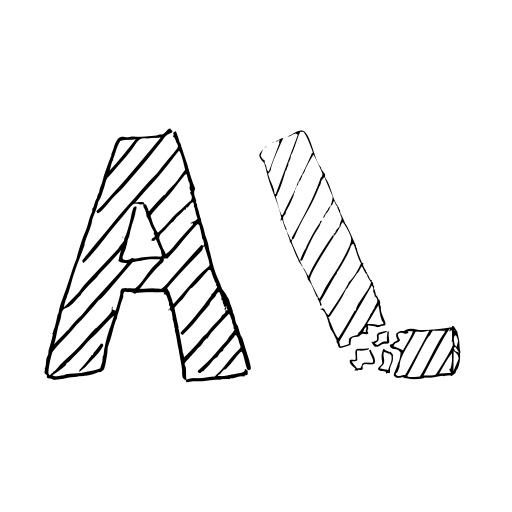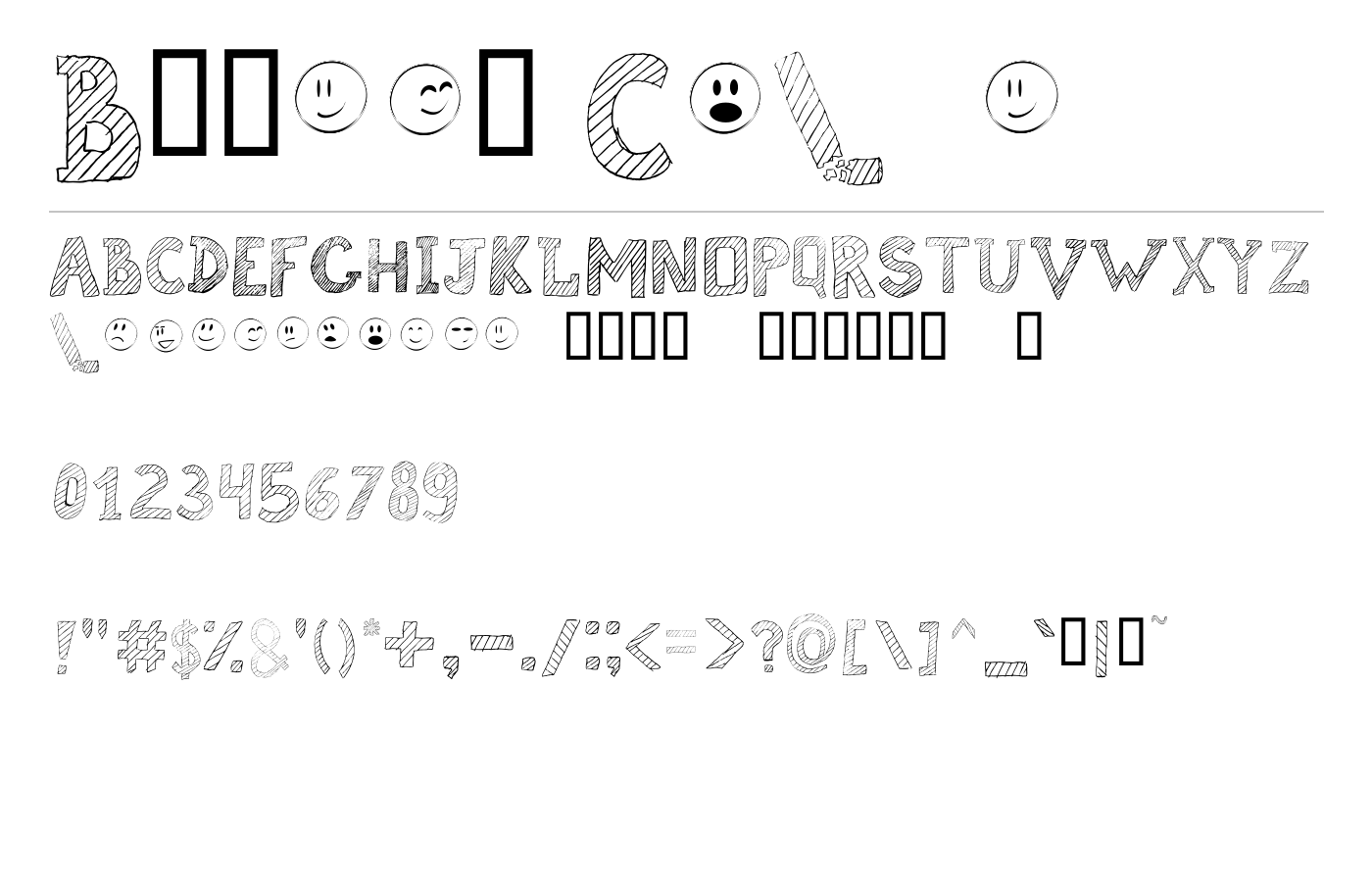
Broken Chalk is a playful, hand-drawn sans serif font that mimics the look of chalk writing with sketchy, textured strokes and irregular lines. Its casual, whimsical style is perfect for creative, informal projects like school themes, children’s designs, or fun posters, adding a friendly and approachable feel. The all-uppercase characters combined with its distinctive broken stroke effect give text a lighthearted, artistic vibe that stands out in headlines and decorative uses.
Broken Chalk Font
About Broken Chalk Font